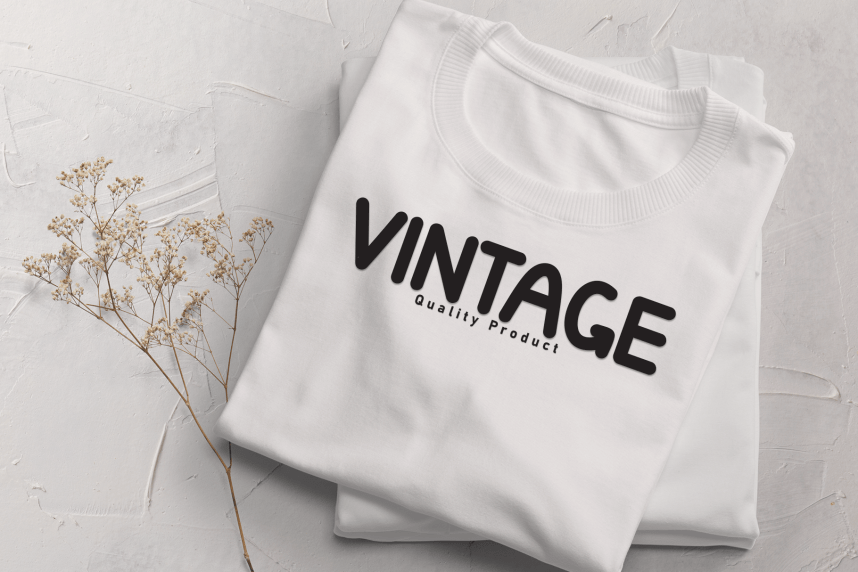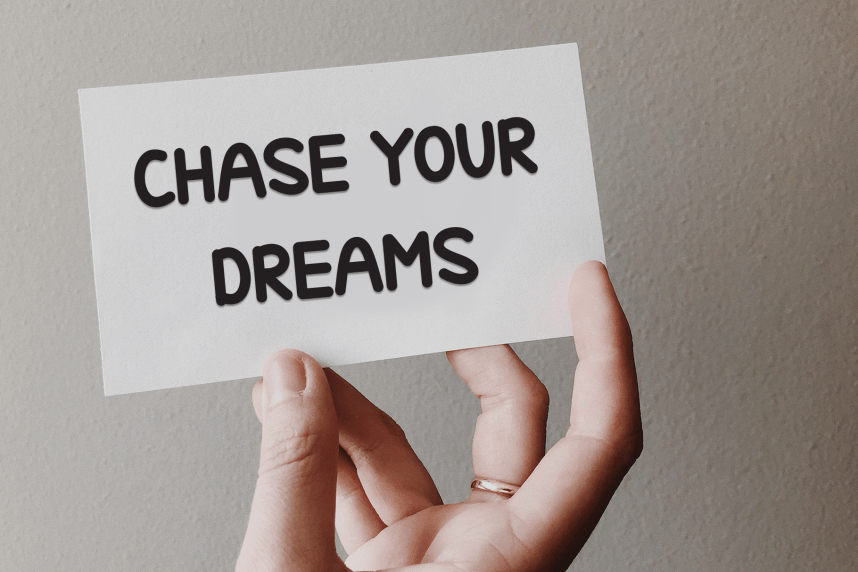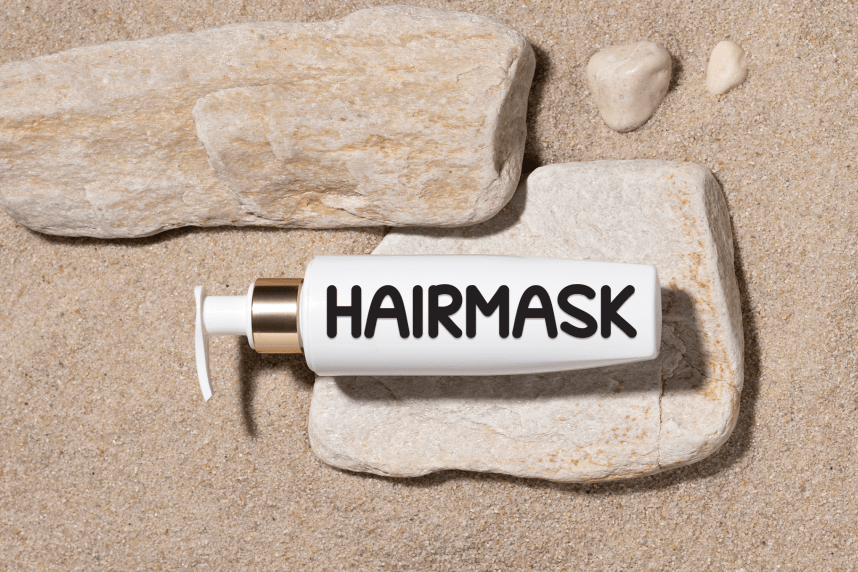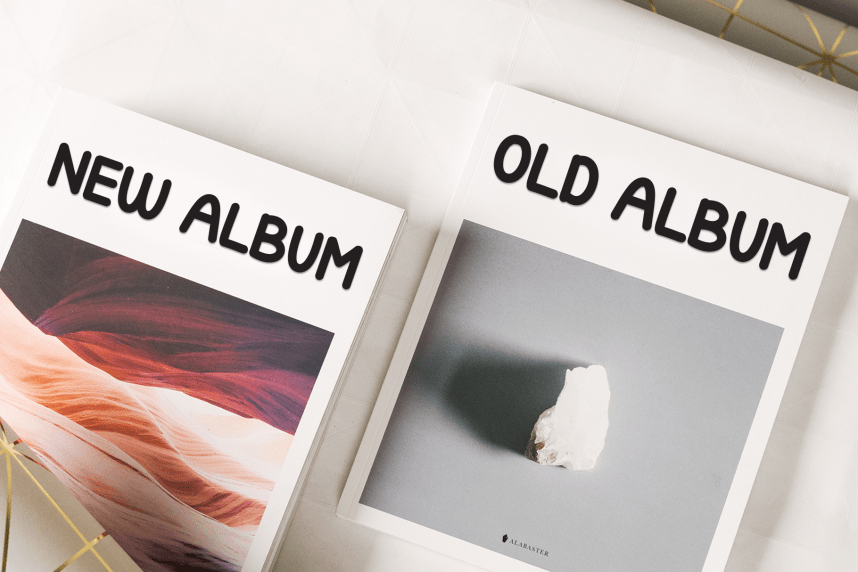
Sunday Bright – Playful Display Font
Sunday Bright – Playful Display Font is a sweet and friendly handwritten display font. Cute and fun, this font is ideal for writing wedding invitations, cards, or any other design that might need a playful touch!